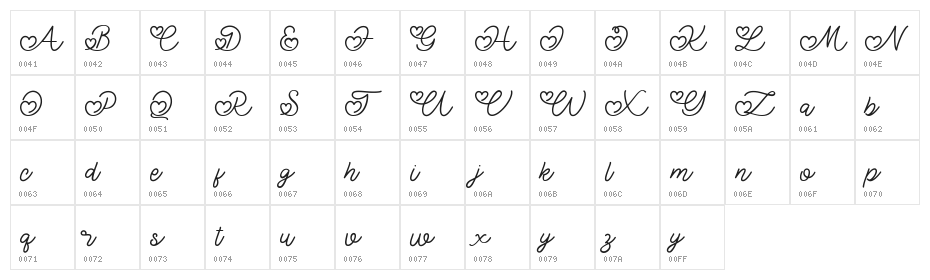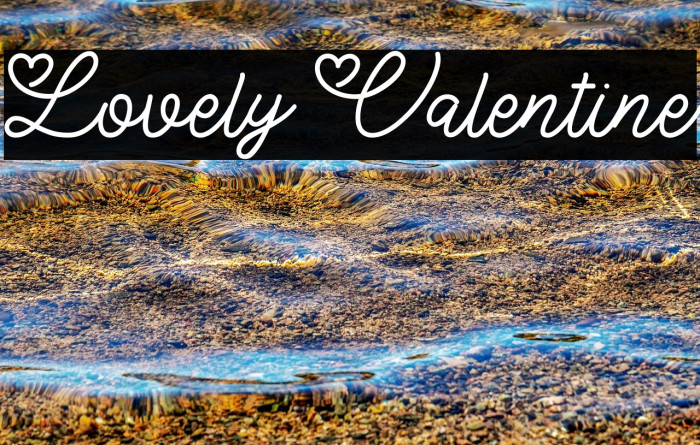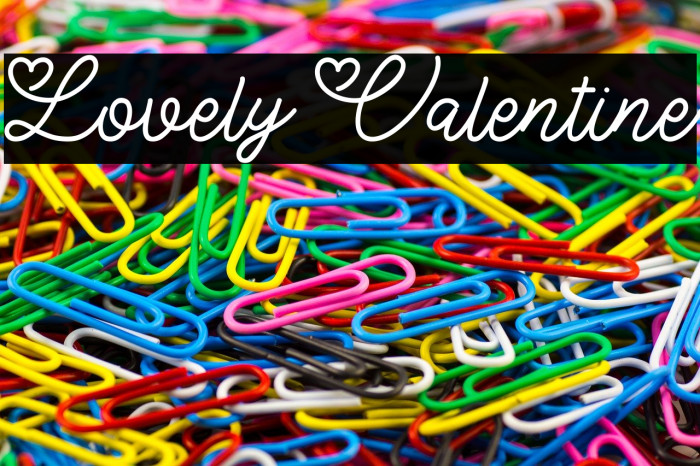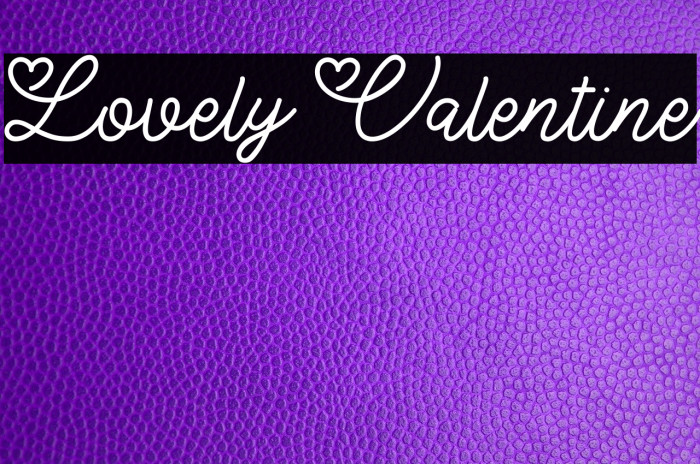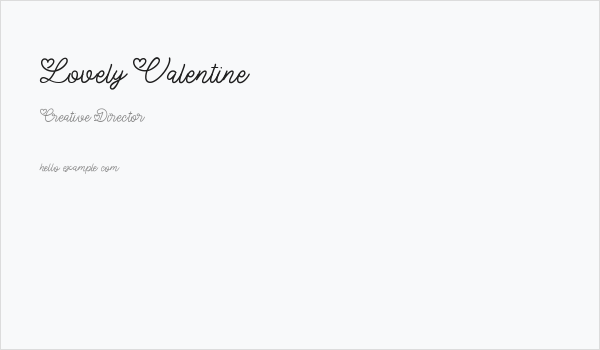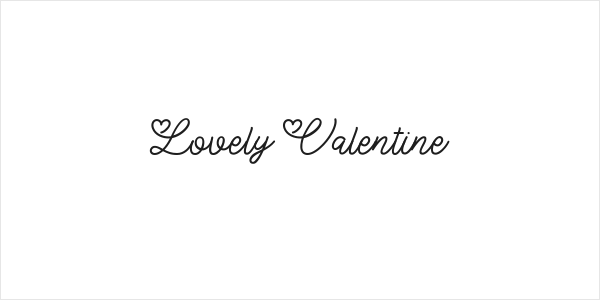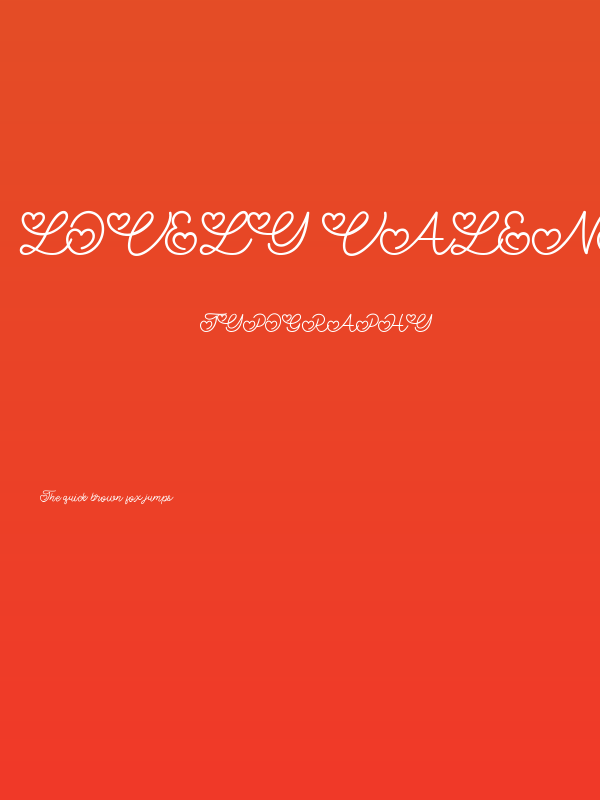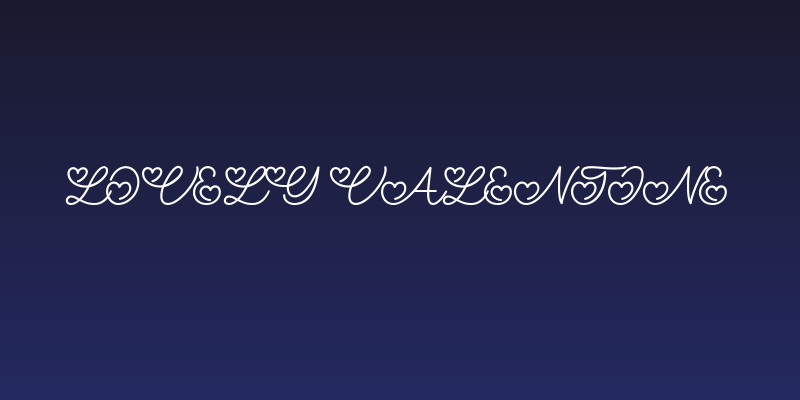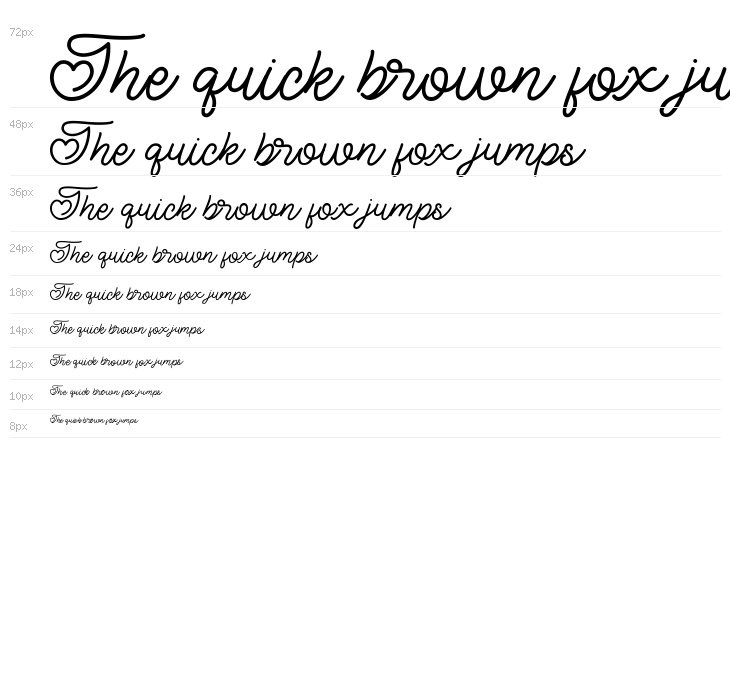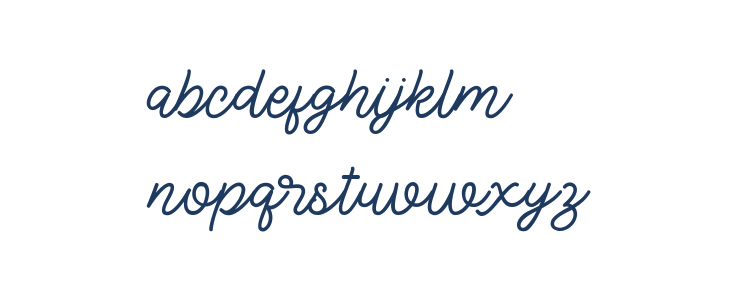
Lovely Valentine Font
Lovely Valentine Description
This font features a charming and playful design, incorporating heart motifs into the uppercase letters, creating a whimsical and romantic feel. The lowercase letters are crafted in a smooth, cursive style, offering a more traditional script appearance. The combination of decorative uppercase and elegant lowercase makes it versatile for various creative applications. The font maintains a consistent stroke width, providing a balanced and harmonious look. Its unique style is perfect for projects that aim to convey love, warmth, and affection.
| Overall Style | Romantic, Playful |
| Use Case | Headlines, Invitations, Greeting Cards |
| Proposed Projects | Ideal for wedding invitations, Valentine's Day cards, romantic branding, and love-themed merchandise. |